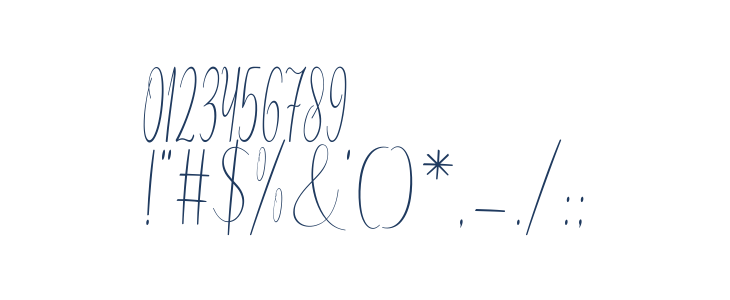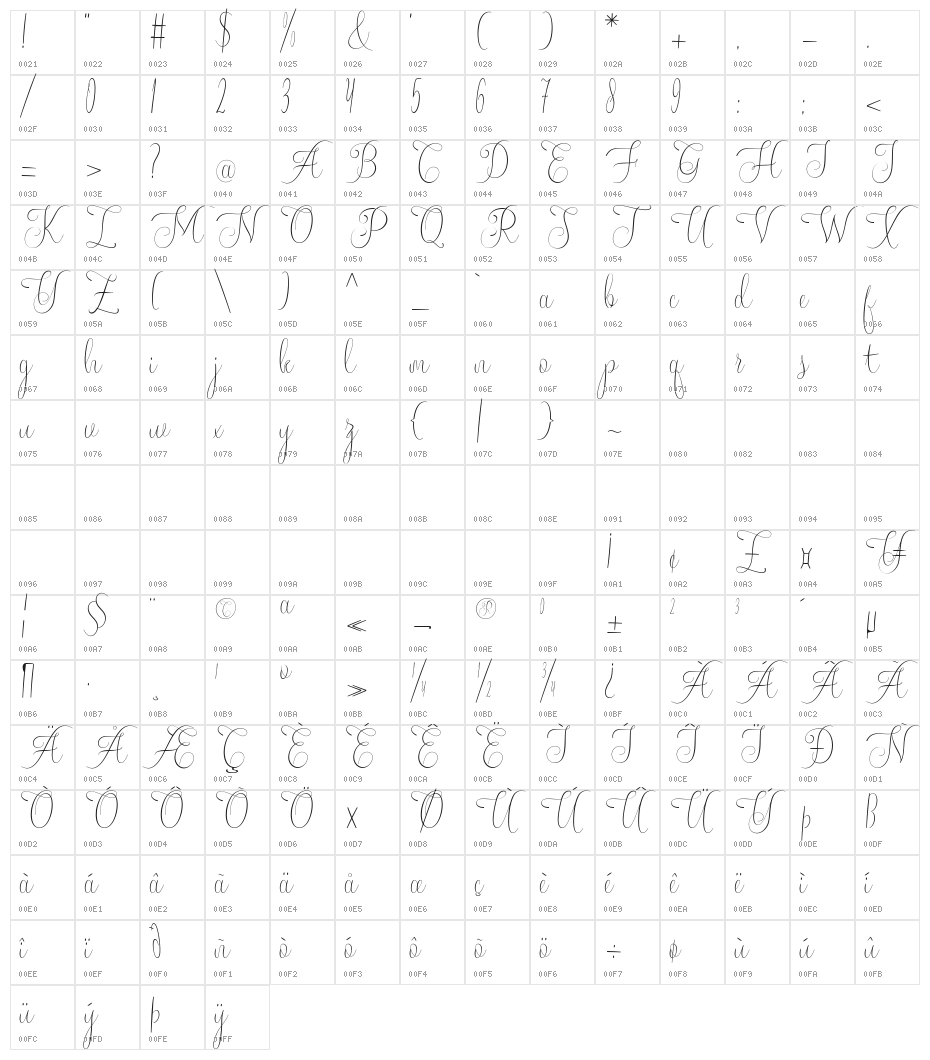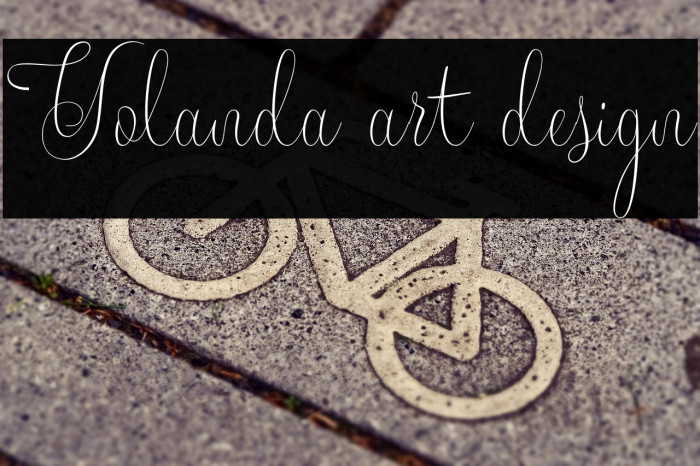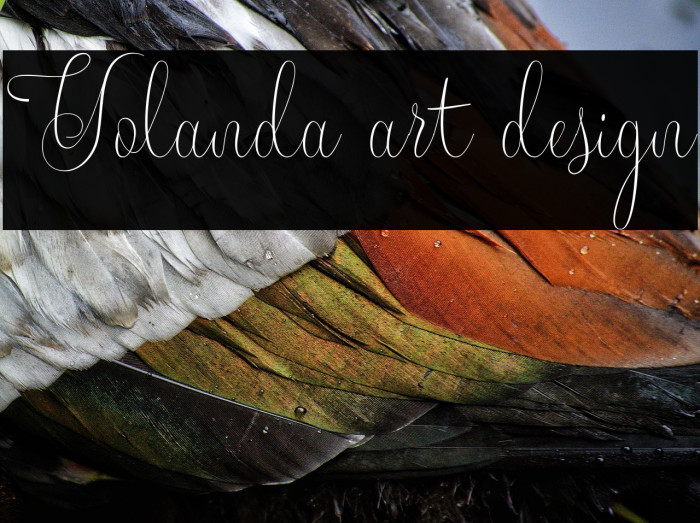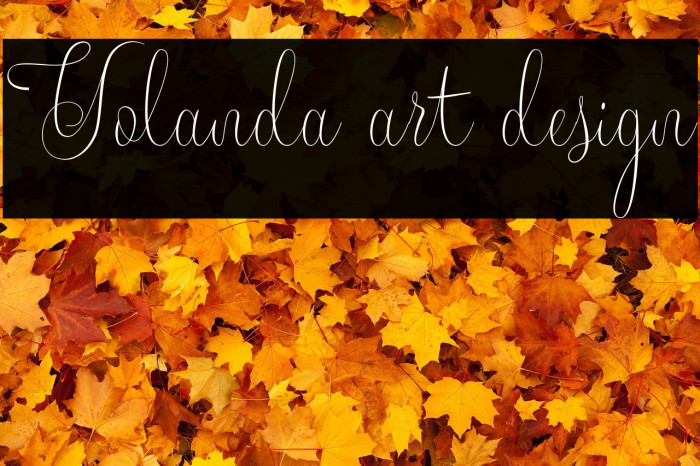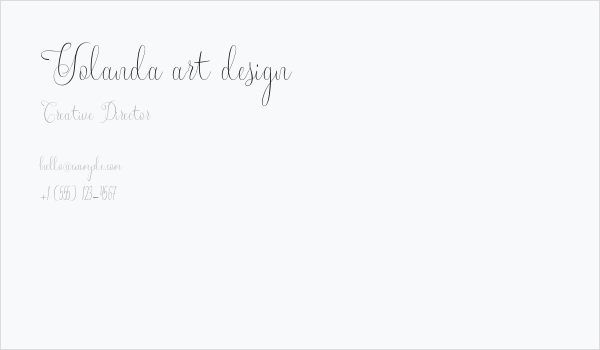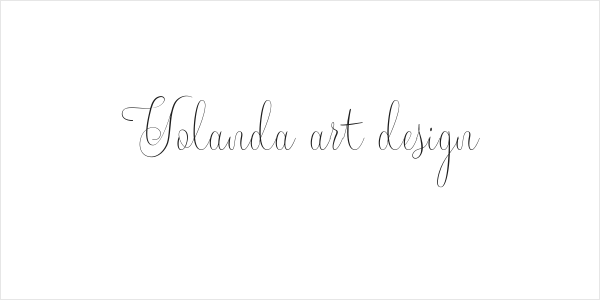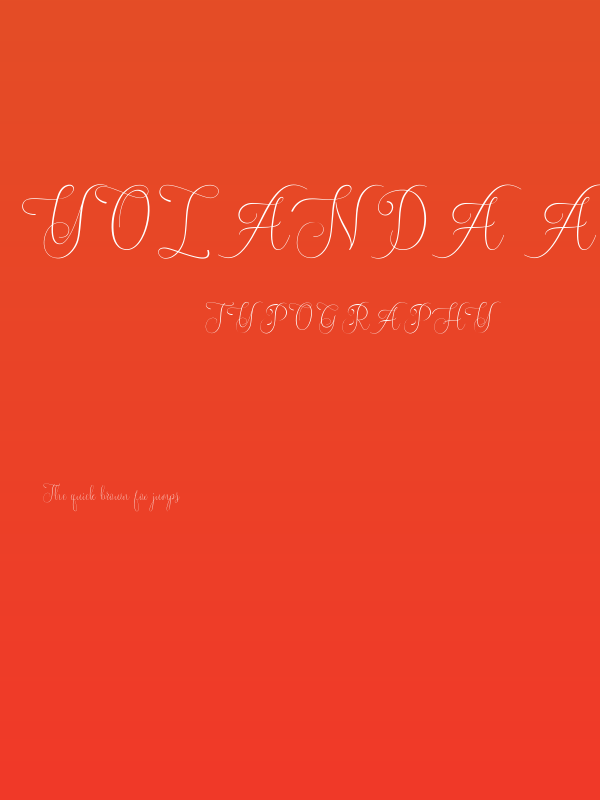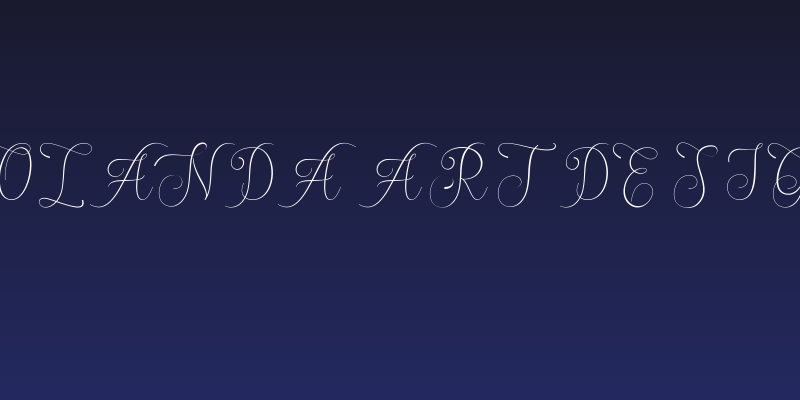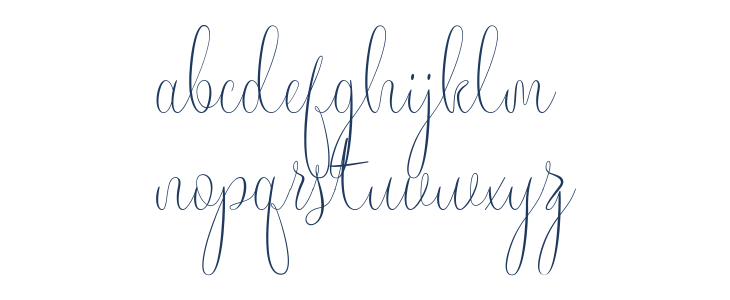
Yolanda art design Font
Yolanda art design Description
This elegant script font features delicate, flowing lines with a sophisticated and artistic flair. The uppercase letters are adorned with graceful loops and swirls, creating a sense of movement and fluidity. The lowercase letters maintain a consistent style, with elongated ascenders and descenders that add to the font's overall elegance. The numerals are slender and tall, complementing the alphabetic characters. Special characters are designed with the same attention to detail, incorporating the font's signature loops and curves. This font is perfect for projects that require a touch of class and creativity.
| Proposed Projects | Ideal for wedding invitations, elegant branding, artistic posters, and decorative signage. |